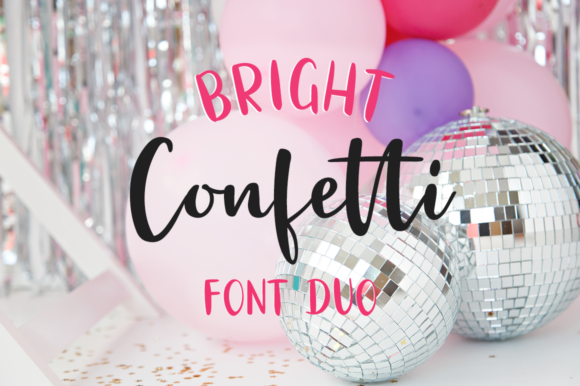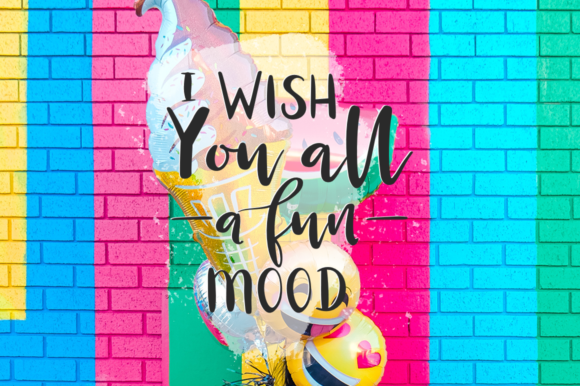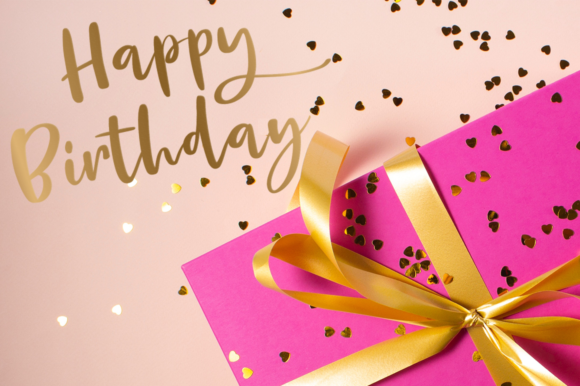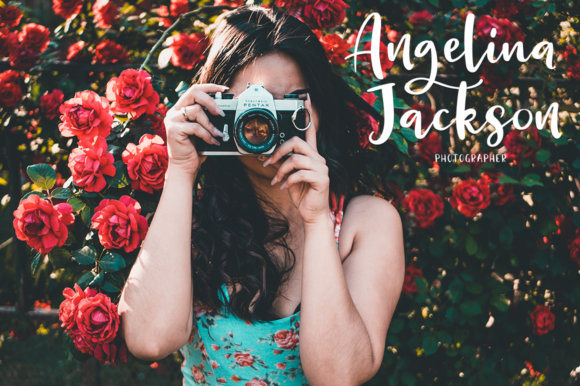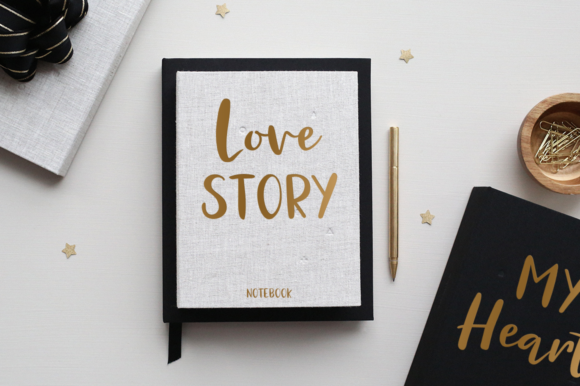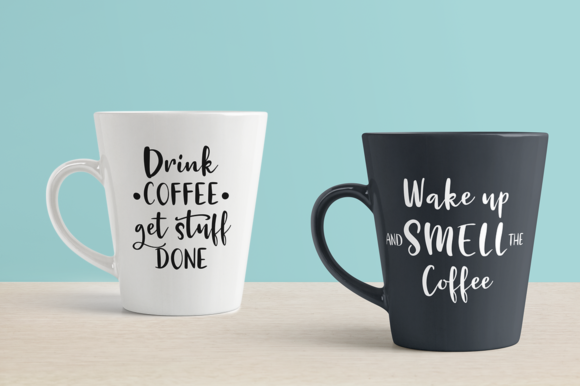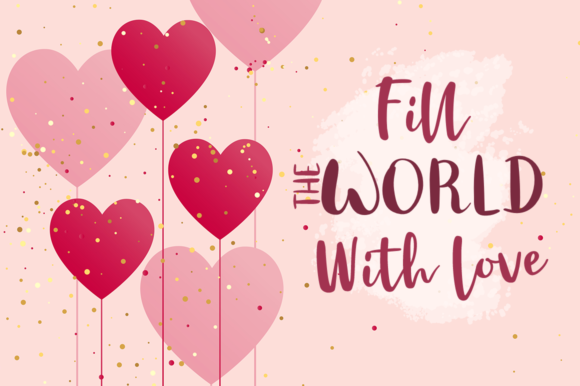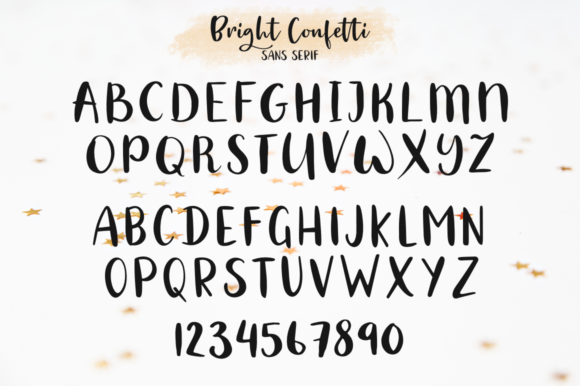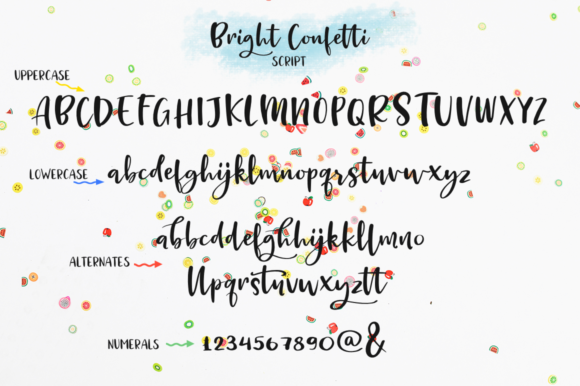
HomeScript FontsBright Confetti Font Script Fonts Bright Confetti Font FacebookXPinterestWhatsApp Bright Confetti Font Poster 2 Bright Confetti Font Poster 3 Bright Confetti Font Poster 4 Bright Confetti Font Poster 5 Bright Confetti Font Poster 6 Bright Confetti Font Poster 7 Bright Confetti Font Poster 8 Bright Confetti Font Poster 9 About Bright Confetti Font Bright Confetti is a fun and adorable handwritten font that will put a spark of magic to any creative project. DOWNLOAD NOW People also explored Destinee Edith Font Pink Pastel Font Bead Chain & Marquee Grand Aprilliant Duo Font Wonkyest Font Veonika Font Cats and the City Font Mrs Blackfort Sifago Font 407 0 TagsBright Confetti Font Previous articlePerfect Sweet Trio FontNext articleLettonelly Font LEAVE A REPLY Cancel reply Comment: Please enter your comment! Name:* Please enter your name here Email:* You have entered an incorrect email address! Please enter your email address here Website: Save my name, email, and website in this browser for the next time I comment. Personal Use Free Unicorn Kids Personal Use Free Read more about this font Lanilla Personal Use Free Read more about this font Sebastopol Personal Use Free Read more about this font Milda Personal Use Free Read more about this font BLOG Where to Buy American Fonts Online in 2024 Where to Buy American Fonts Online: The Ultimate Guide for 2024 Looking for the perfect American font to elevate your design projects? You're in the... Best Fonts for T-Shirt Design – Top 2025 Picks Top 10 Handwritten Fonts That Elevate Your Designs 5 Fonts That Will Dominate Design Trends in 2026